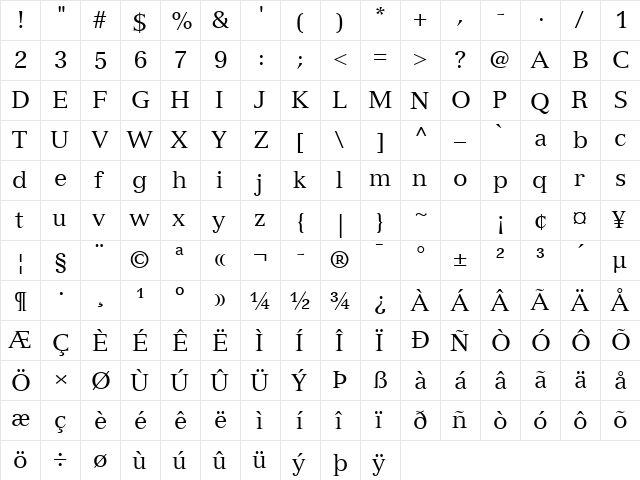
Versailles LT Com 55 Roman
| Foundry | Linotype GmbH |
| Designer | Adrian Frutiger |
Design Context for Versailles LT Com Typeface
Versailles LT Com takes a measured approach to typography — its balanced proportions and neutral character make it a reliable workhorse for both digital and print work. Its slender proportions lend an understated elegance to any composition.